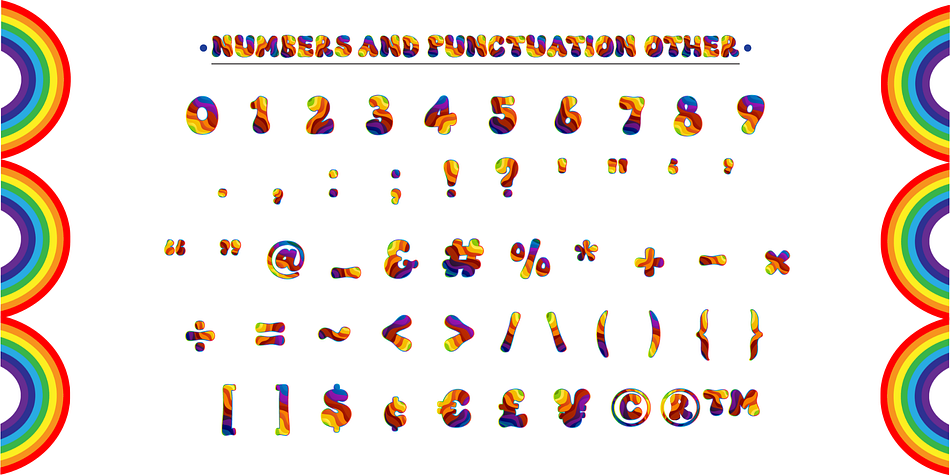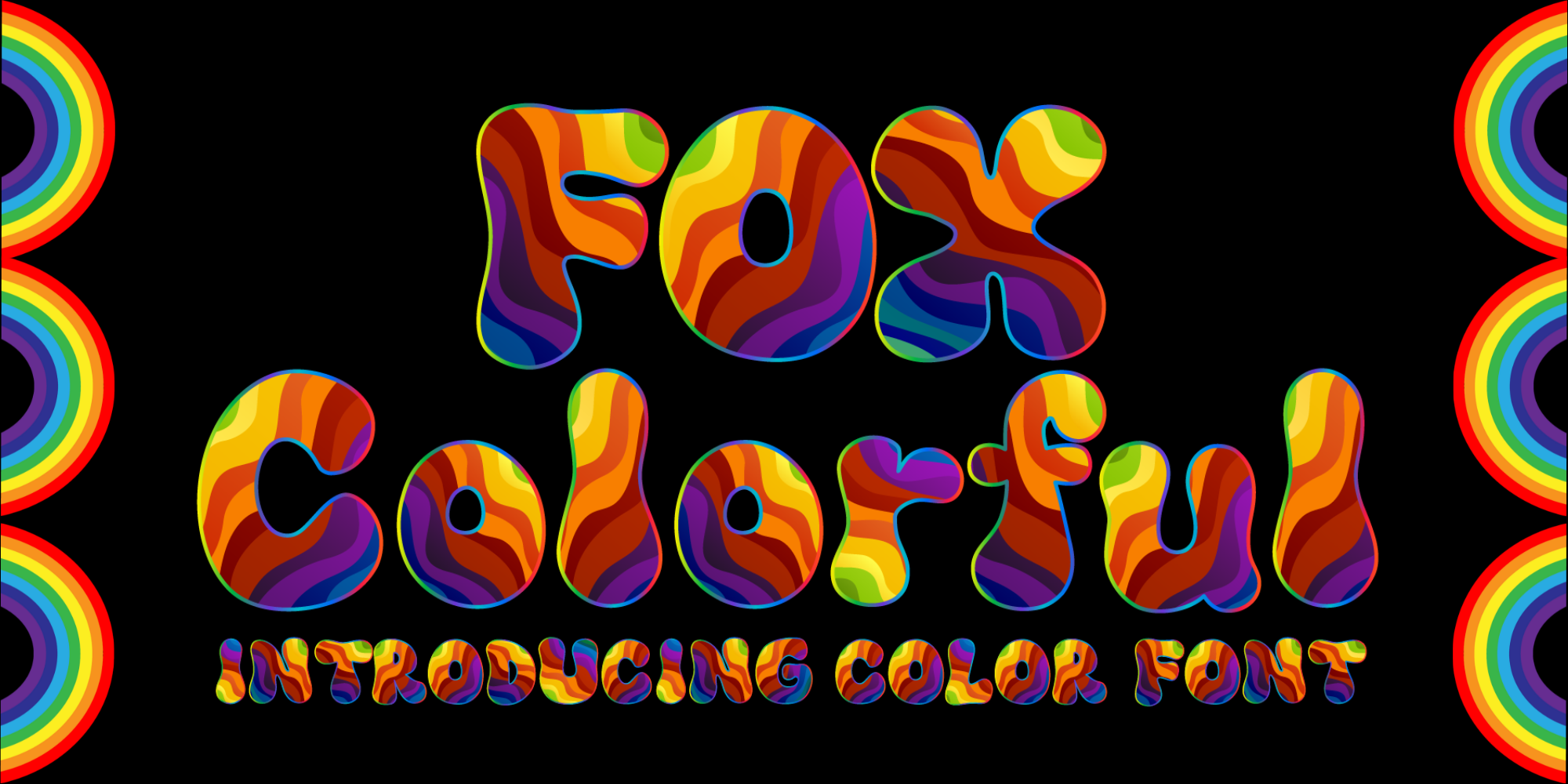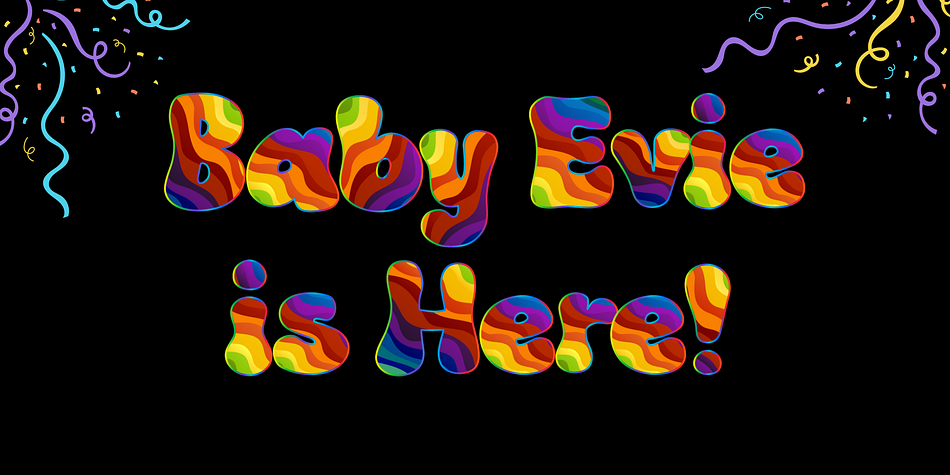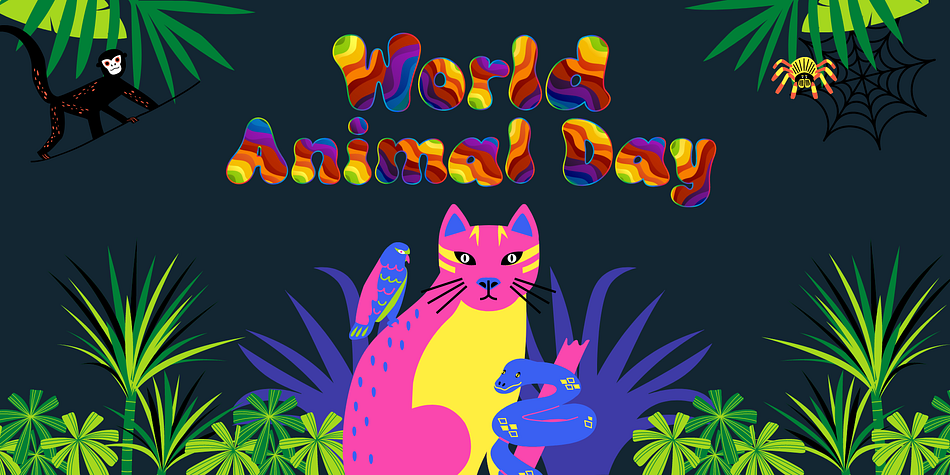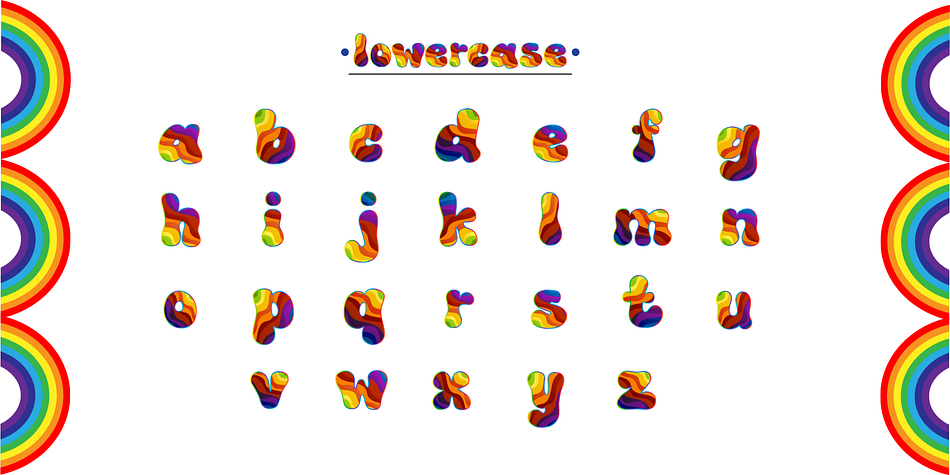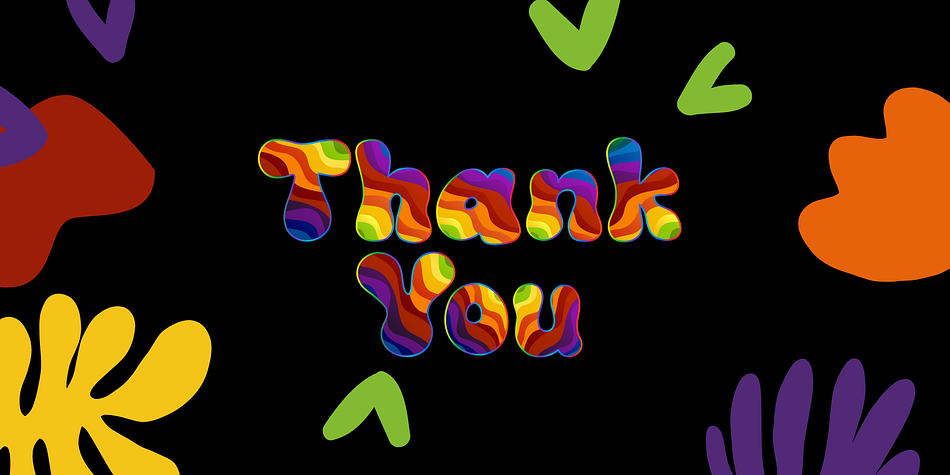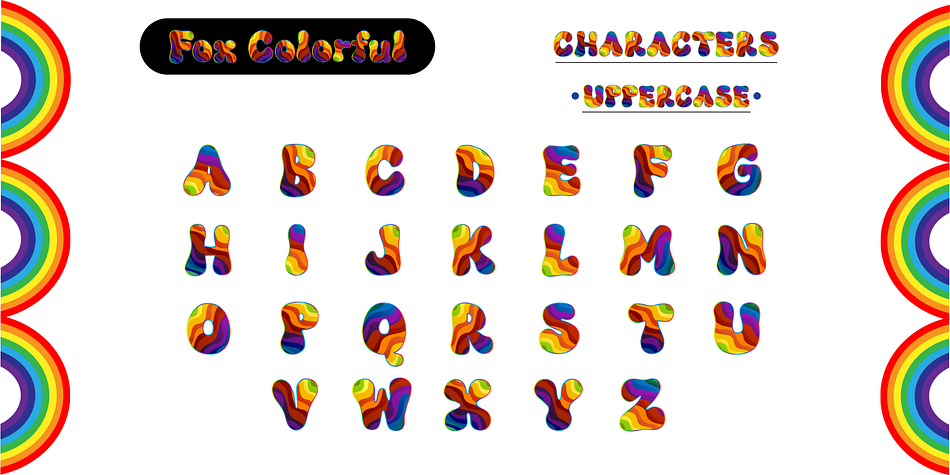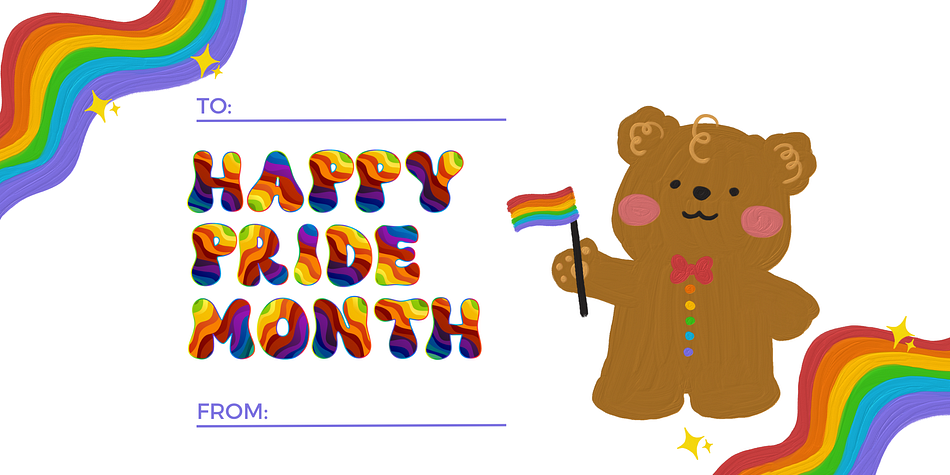
Fox Colorful
Designed by Rattana Rattanawan, Fox Colorful is a display font family. This typeface has two styles and was published by Fox7.
Fox Colorful is a fun and cool color font. Fall in love with its authentic feel and use it to create gorgeous invitations, beautiful stationary art, eye-catching social media posts, and cute greeting cards. Design your product using this unique font and share your project for others to be inspired by your work!